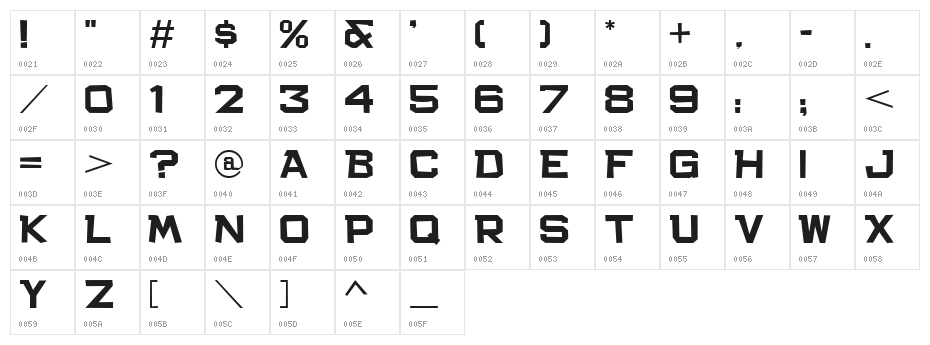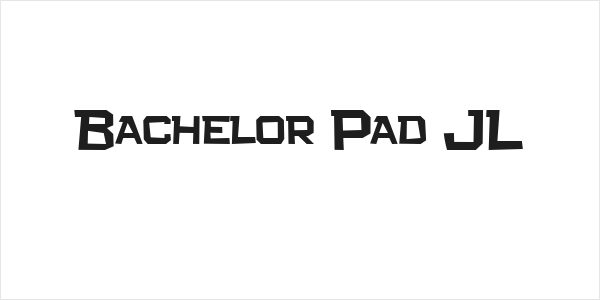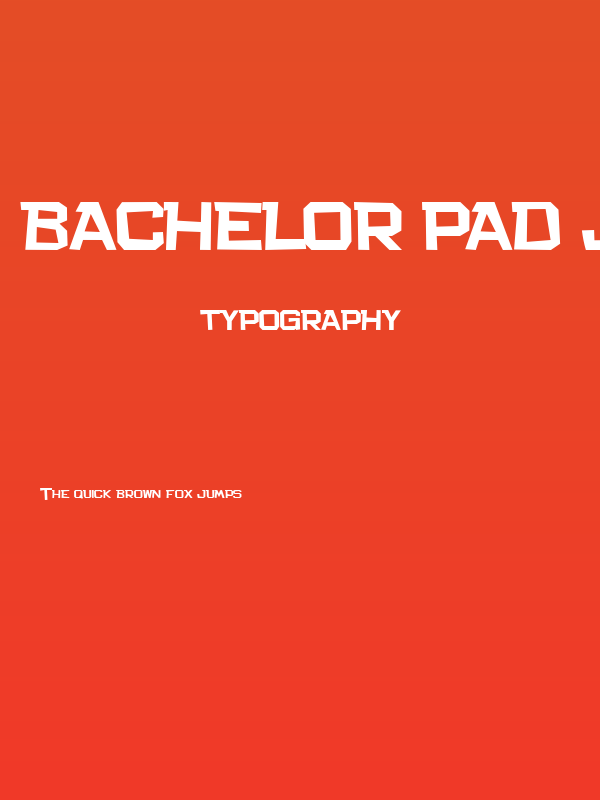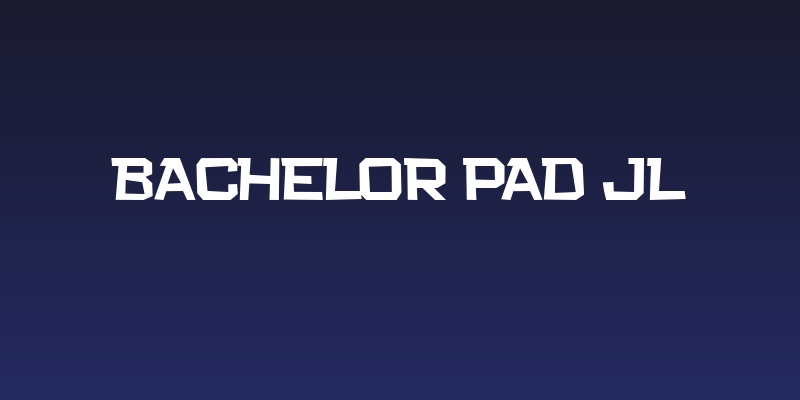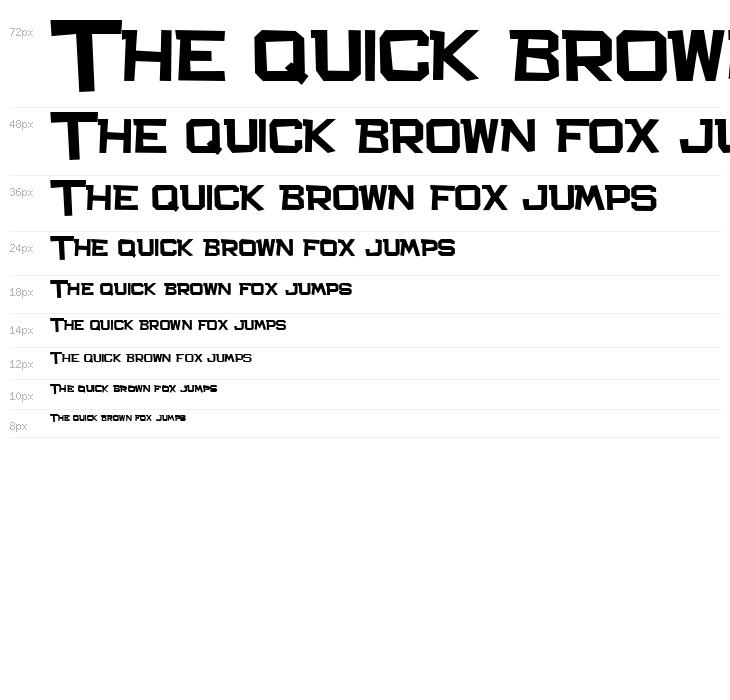
Bachelor Pad JL Font
Bachelor Pad JL Description
This font features a bold, geometric design with a strong, angular appearance. The characters are constructed with sharp edges and a blocky structure, giving it a futuristic and industrial feel. The uppercase letters are uniform in height, while the lowercase letters maintain a consistent style, enhancing readability. The numbers and special characters follow the same design principles, ensuring a cohesive look across all glyphs. The font's distinct style makes it suitable for attention-grabbing headlines and modern design projects. Its boldness and unique character shapes make it stand out, while the consistent line thickness and spacing provide a balanced and harmonious appearance.
| Proposed Projects | Ideal for use in sci-fi themed designs, video game graphics, posters, and branding that requires a modern and edgy look. |